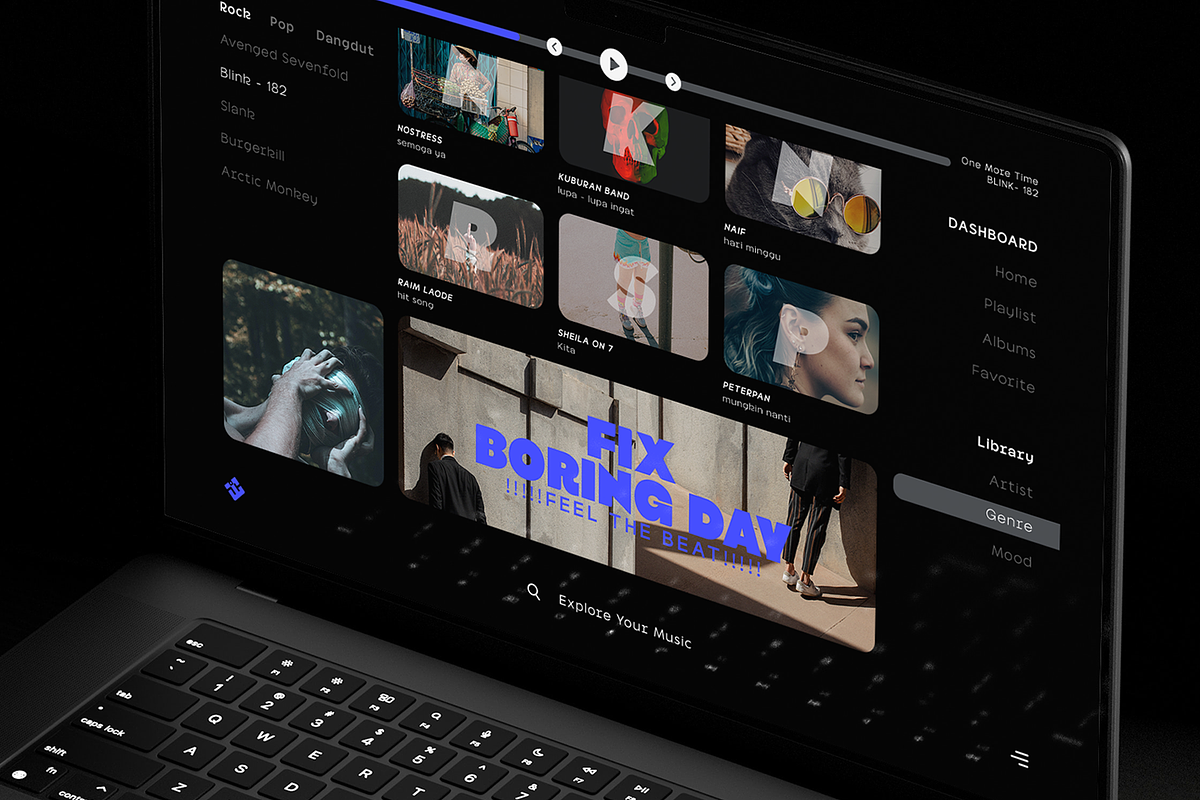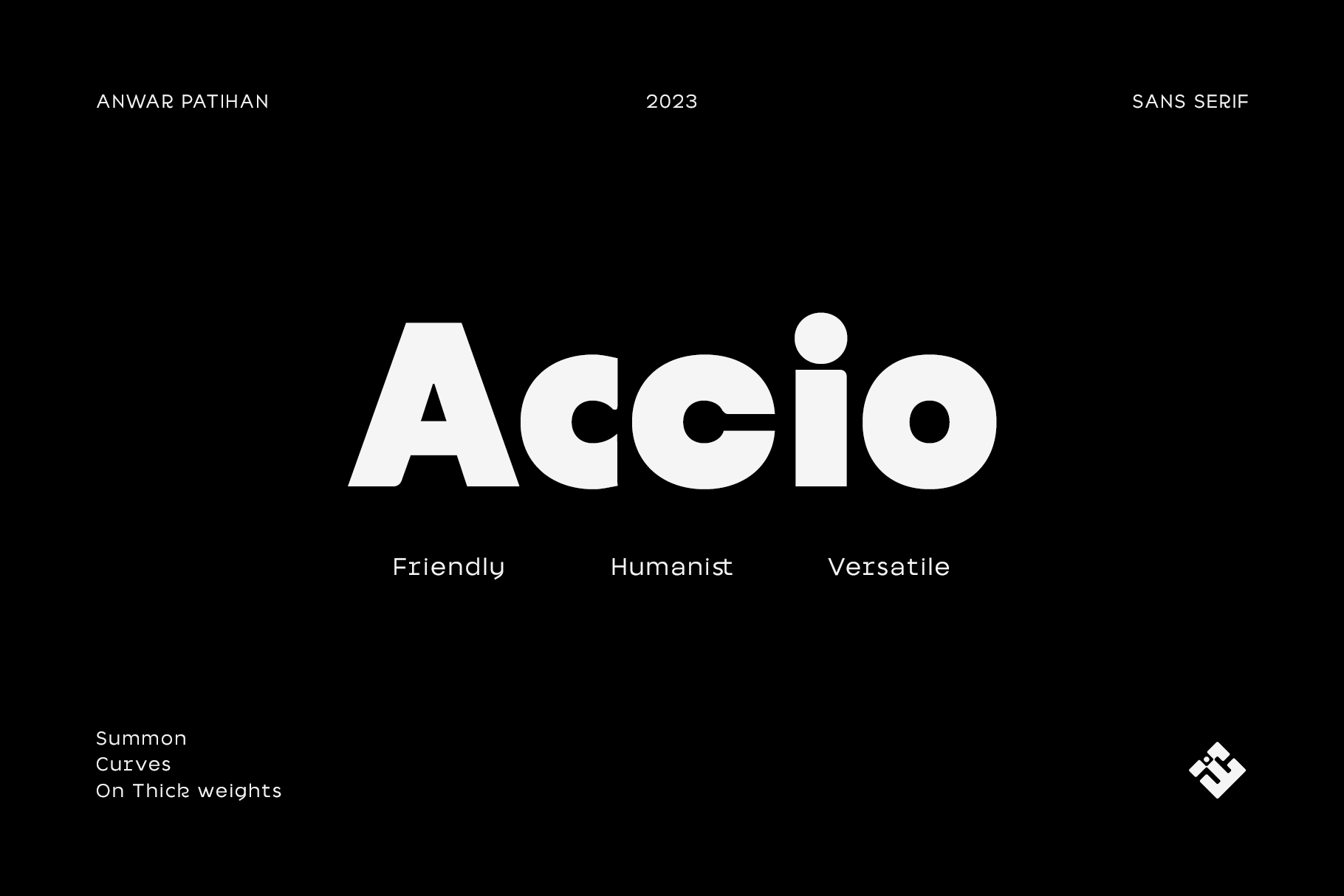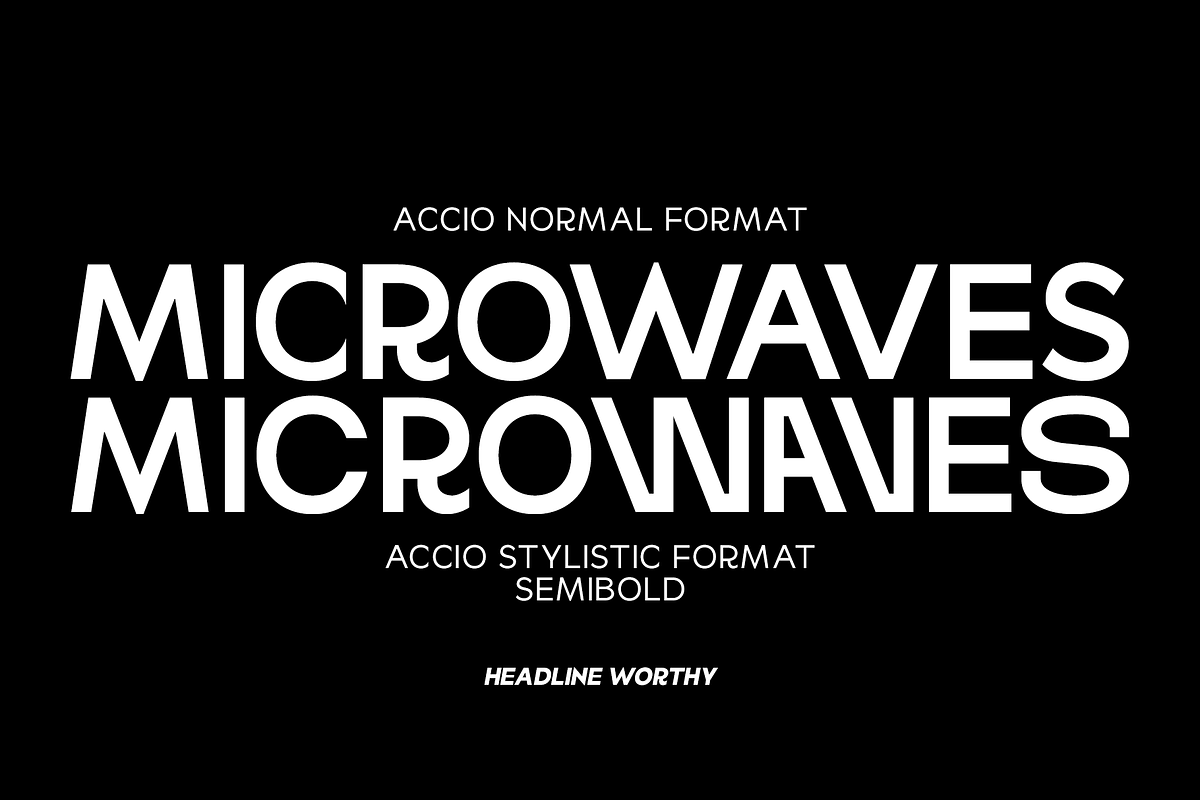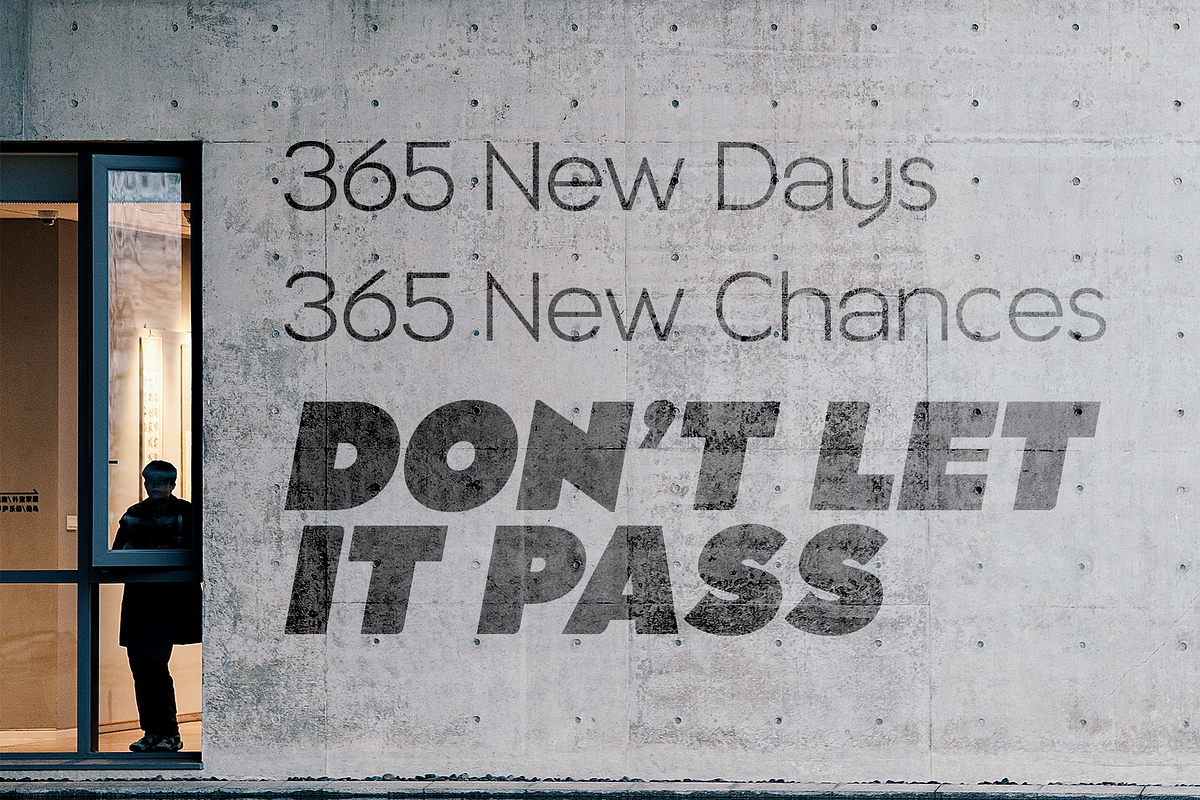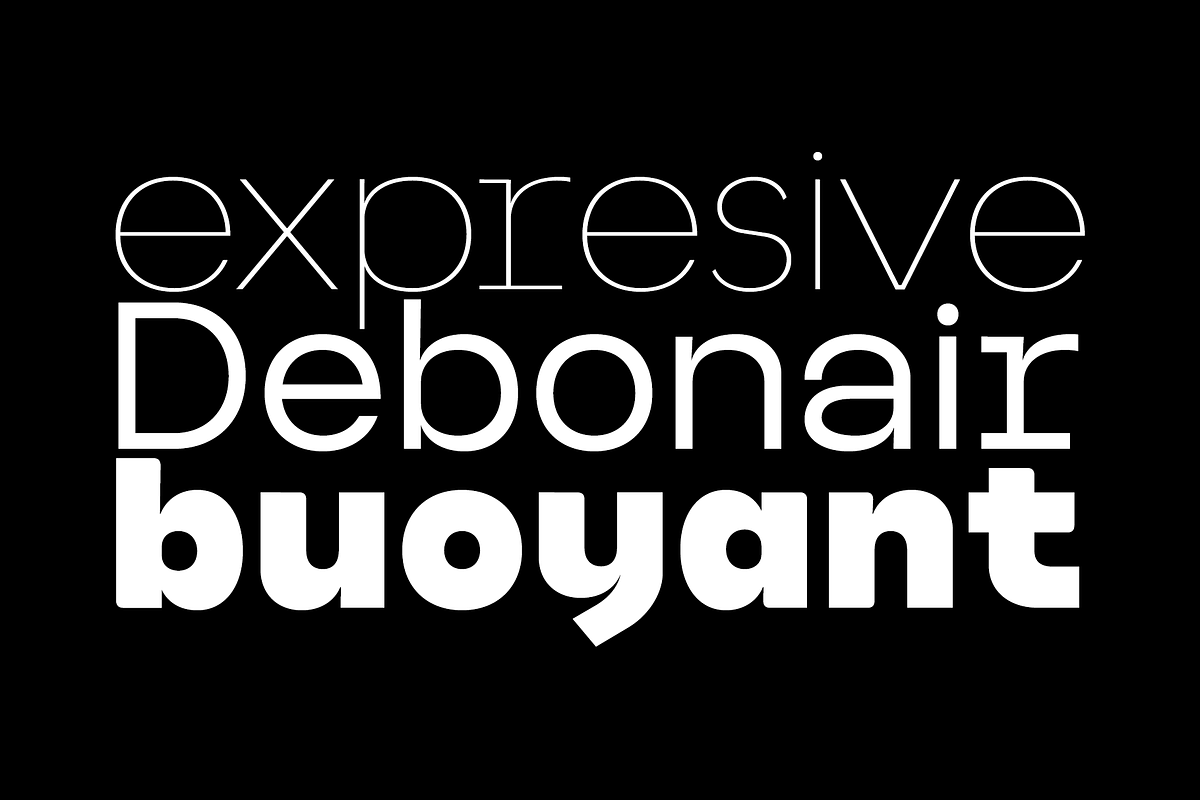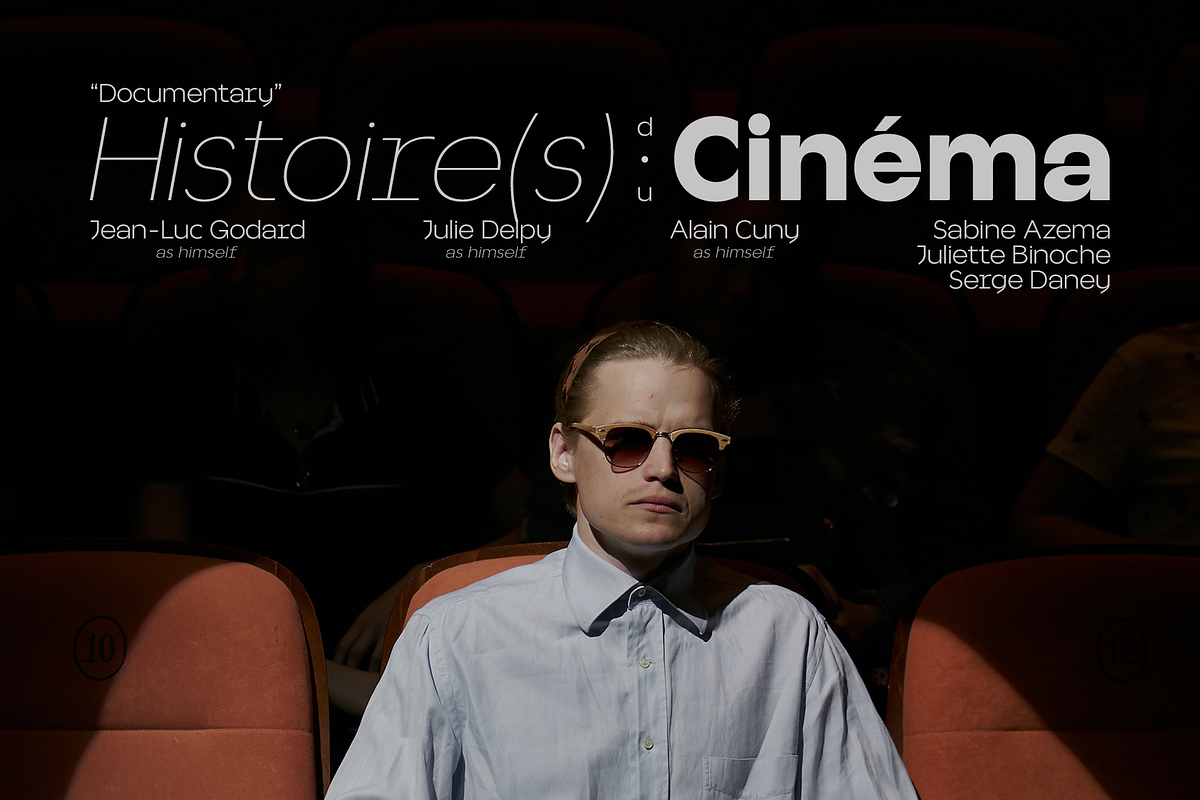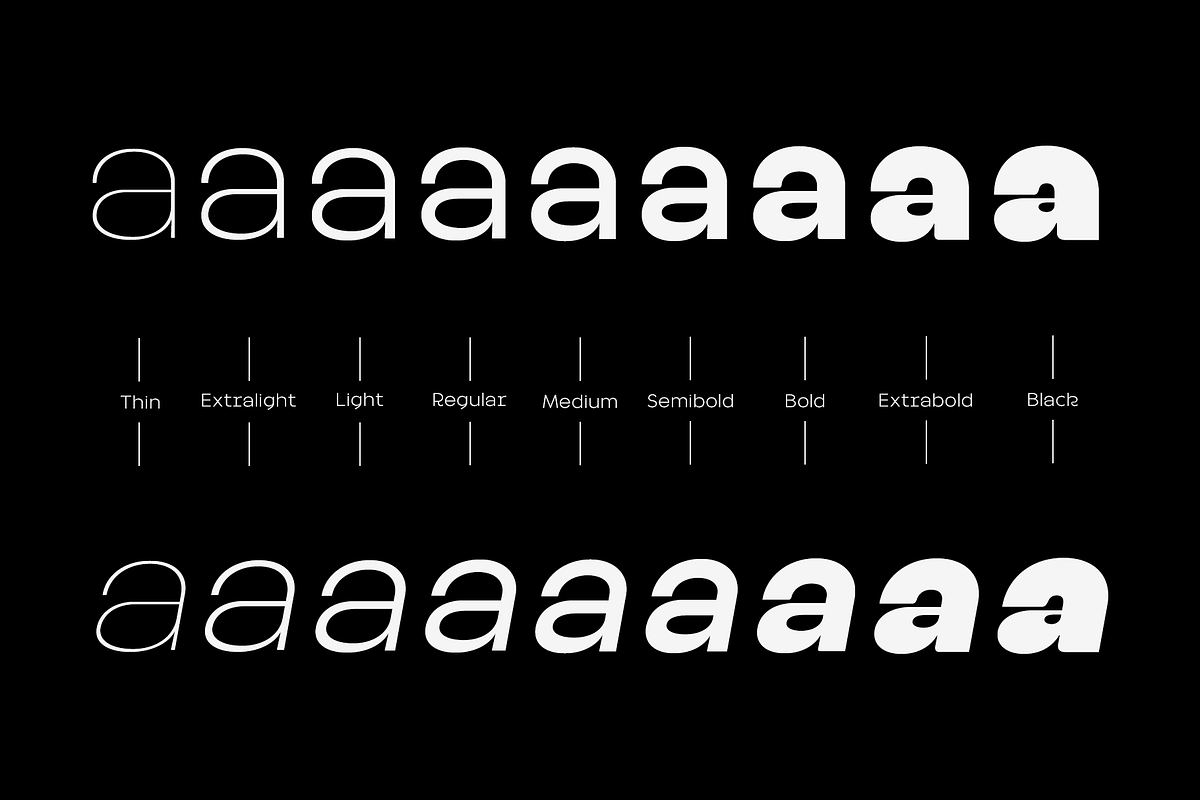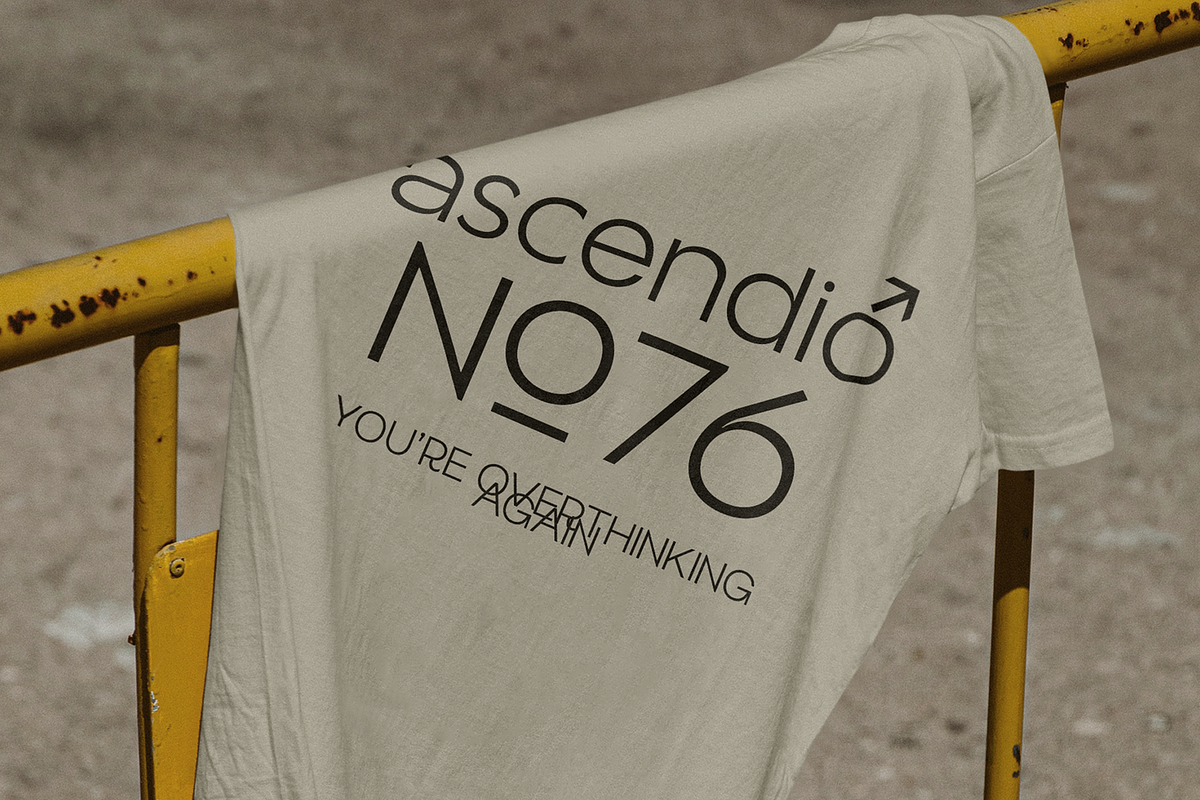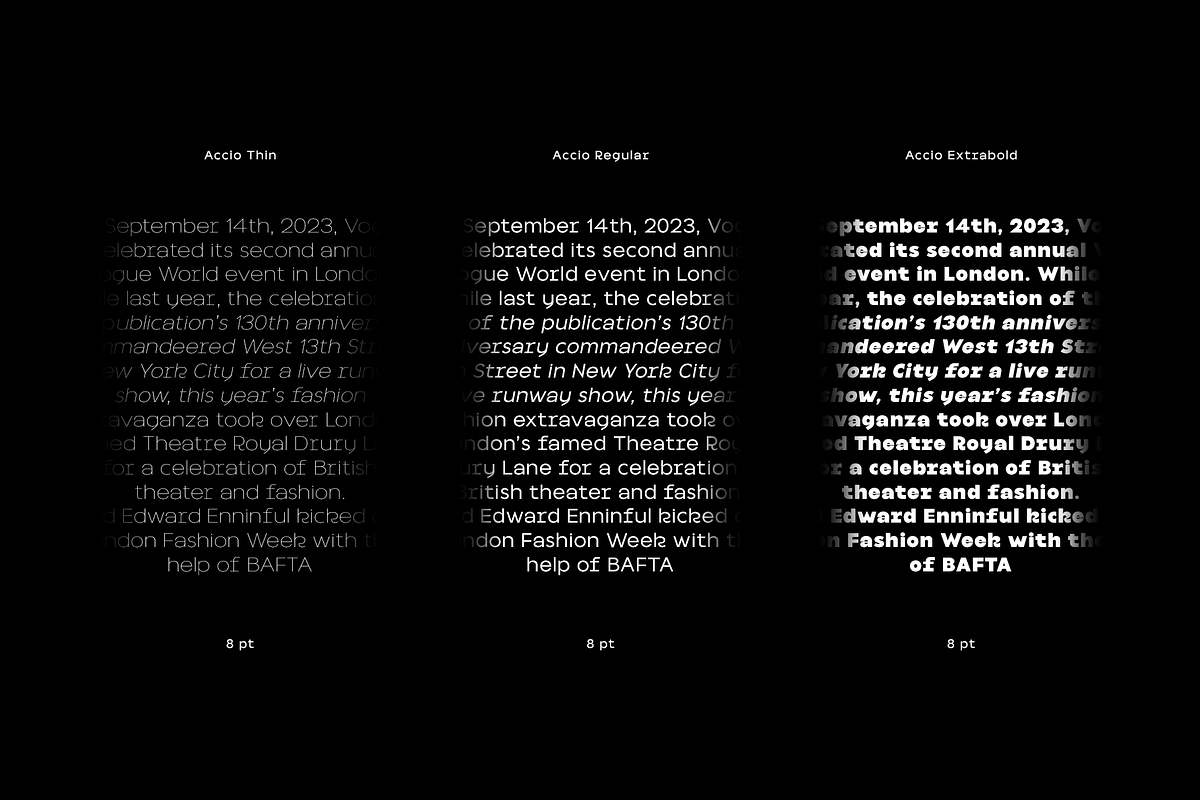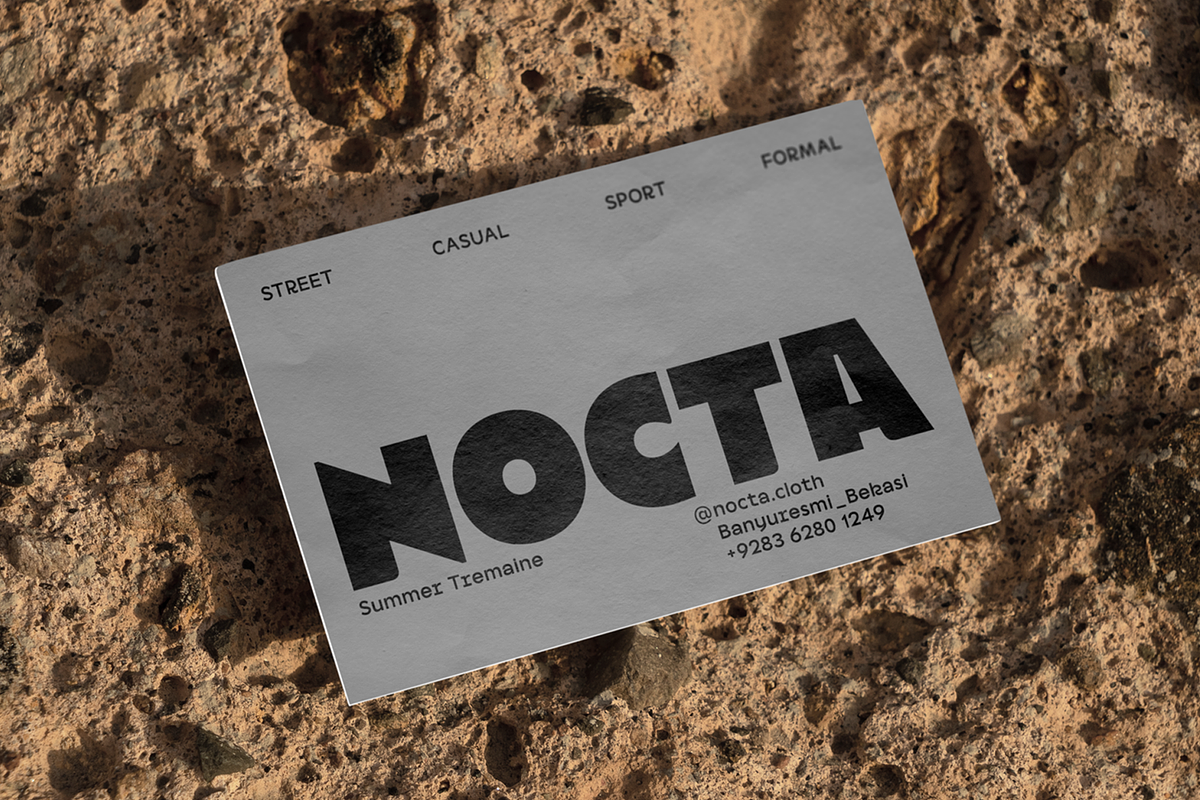
Accio - A Modern Sans Serif Typeface
Accio is a modern and versatile sans serif font that effortlessly combines legibility with a touch of unique character. With its clean lines and distinctive curved terminals in the bold variant, Accio offers a refreshing and friendly appearance that sets it apart from traditional sans serif typefaces. Designed to meet the needs of a wide range of design projects, Accio boasts a total of nine meticulously crafted weights, each complemented by a corresponding italic style, providing designers with a comprehensive toolbox for all their typographic needs.